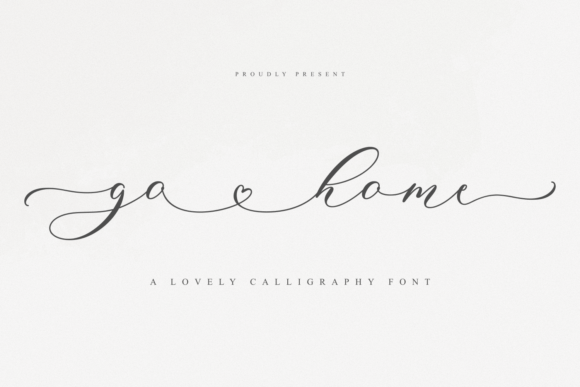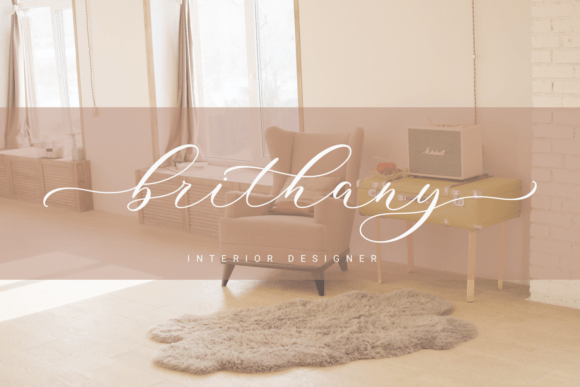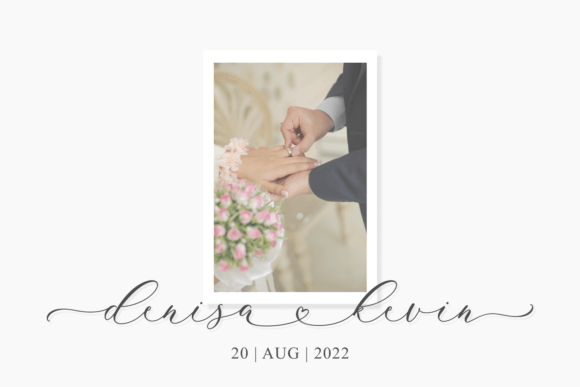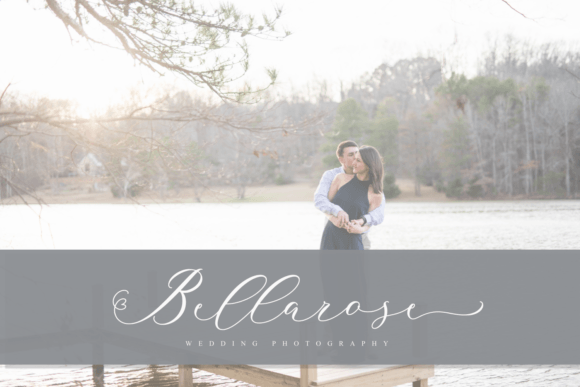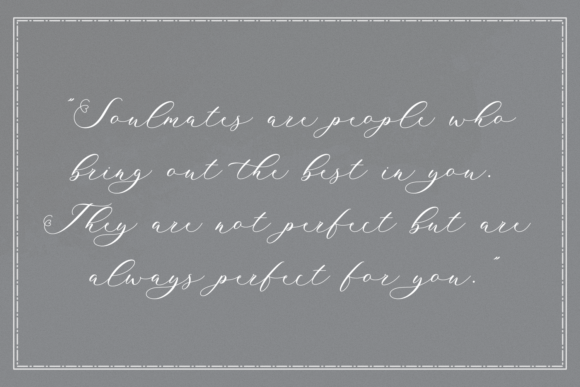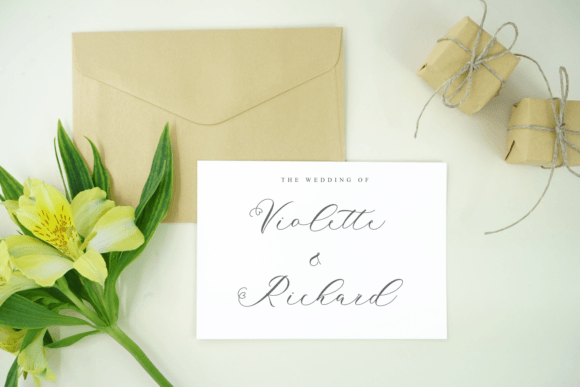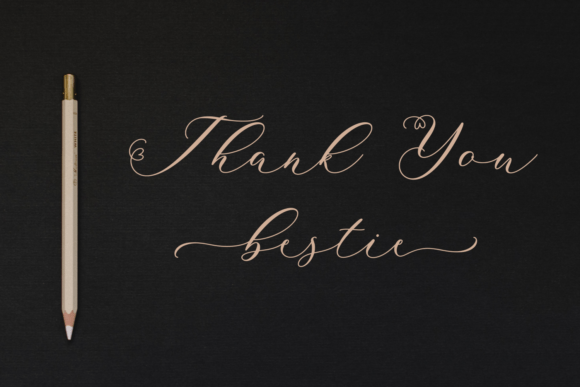
Go Home
About Go Home
Go Home is lovely and classy calligraphy font with thin line style will make your design elegant. Add it to your logos, labels, branding, invitations, websites, quotes, and more, and it will boost your designs and make them a true standout!